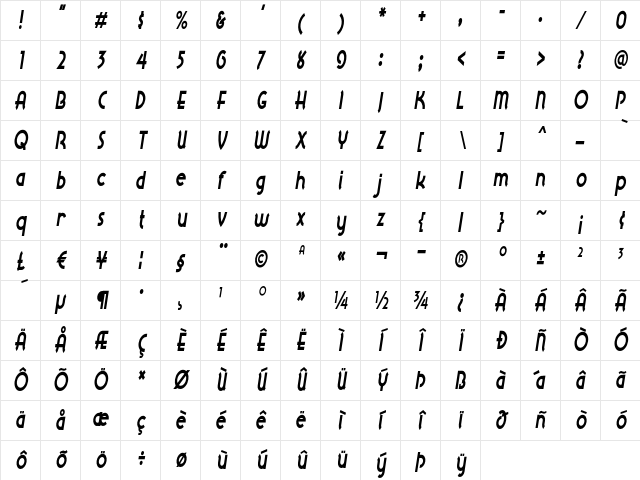
Berrington Condensed Italic
Style: Condensed Italic
Berrington Family
Berrington Condensed Italic
Design Context for Berrington
Berrington is a composed and adaptable typeface that performs quietly and consistently across a wide range of design contexts. The slanted form adds forward momentum and visual energy. Its narrow stance lets it pack a punch even in space-constrained designs.
Pro Tip: Use Berrington for emphasis, pull quotes, and subheadings where its slanted energy can add rhythm to the layout.